Watch New
Understated. Overdelivered.9 styles + Variable cutsFoxy diva Jennifer Lopez wasn’t baking my quiche.AaBbCcDdEeFfGgHhJjKkLlMmNnOoPp -
Museum New
Classic form. Contemporary soul.18 styles + Variable cuts
Including ItalicsJim quickly realized that the beautiful gowns are expensive.AaBbCcDdEeFfGgHhJjKkLlMmNnOoPp -
Monument Collection Update
Your brutalist ally.90 styles + Variable cuts
including ItalicsThe quick brown fox jumps over the lazy dog.AaBbCcDdEeFfGgHhJjKkLlMmNnOoPp -
Model Collection New
Inspired by the iconic Japanese brand Tamiya.72 styles + Variable Cut
Including Italics & JapaneseThe quick brown fox jumps over the lazy dog.AaBbCcDdEeFfGgHhJjKkLlMmNnOoPp -
Lettra Mono
Classic aesthetics of serif typewriters.16 styles + Variable cut
Including ItalicsWe promptly judged antique ivory buckles for the next prize.AaBbCcDdEeFfGgHhJjKkLlMmNnOoPp -
Valve Collection
Pressure Shapes Personality.32 styles + Variable cut
Including Italics and Stencil CutTwelve ziggurats quickly jumped a finch box.AaBbCcDdEeFfGgHhJjKkLlMmNnOoPp -
Neue Corp Collection
Ultimate tool for advertising.80 styles + Variable Cut
Including Cyrillic SupportThe July sun caused a fragment of black pine wax to ooze on the velvet quilt.AaBbCcDdEeFfGgHhJjKkLlMmNnOoPp -
Kyoto Early access
Bold slabs.
Soft teardrops.
Impact with grace.18 styles + Variable cuts
Including ItalicsFoxy diva Jennifer Lopez wasn’t baking my quiche.AaBbCcDdEeFfGgHhJjKkLlMmNnOoPp -
Editorial Sans
Refined for Print. Ready for Screen.16 styles + Variable cut
Including True ItalicsWe promptly judged antique ivory buckles for the next prize.AaBbCcDdEeFfGgHhJjKkLlMmNnOoPp -
Playground
Where Elegance Plays.5 styles + Variable cutJackie will budget for the most expensive zoology equipment.AaBbCcDdEeFfGgHhJjKkLlMmNnOoPp -
Nikkei Collection
A Typeface Woven With Memory.72 styles + Variable Cut
Including Italics and a Crest SetIn Baghdad, a quail gawked at a camel playing sexy lo-fi Peruvian jazz.AaBbCcDdEeFfGgHhJjKkLlMmNnOoPp -
Acma Update
Grace, With Sharp Edges.20 styles + Variable cut
Including ItalicsThe wizard quickly jinxed the gnomes before they vaporized.AaBbCcDdEeFfGgHhJjKkLlMmNnOoPp
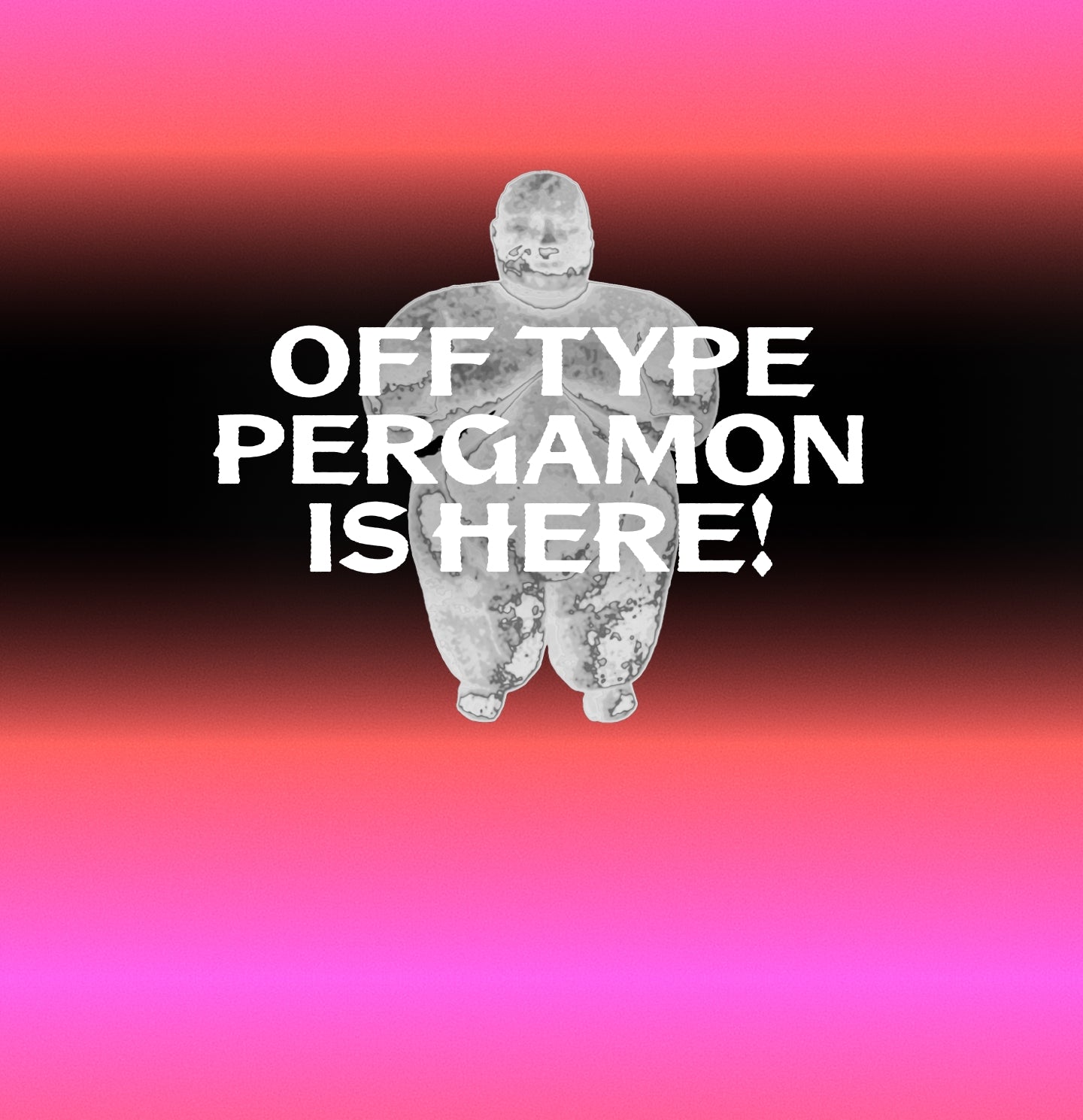
The spiritual heir to one of the most recognizable
and polarizing, digital calligraphic fonts